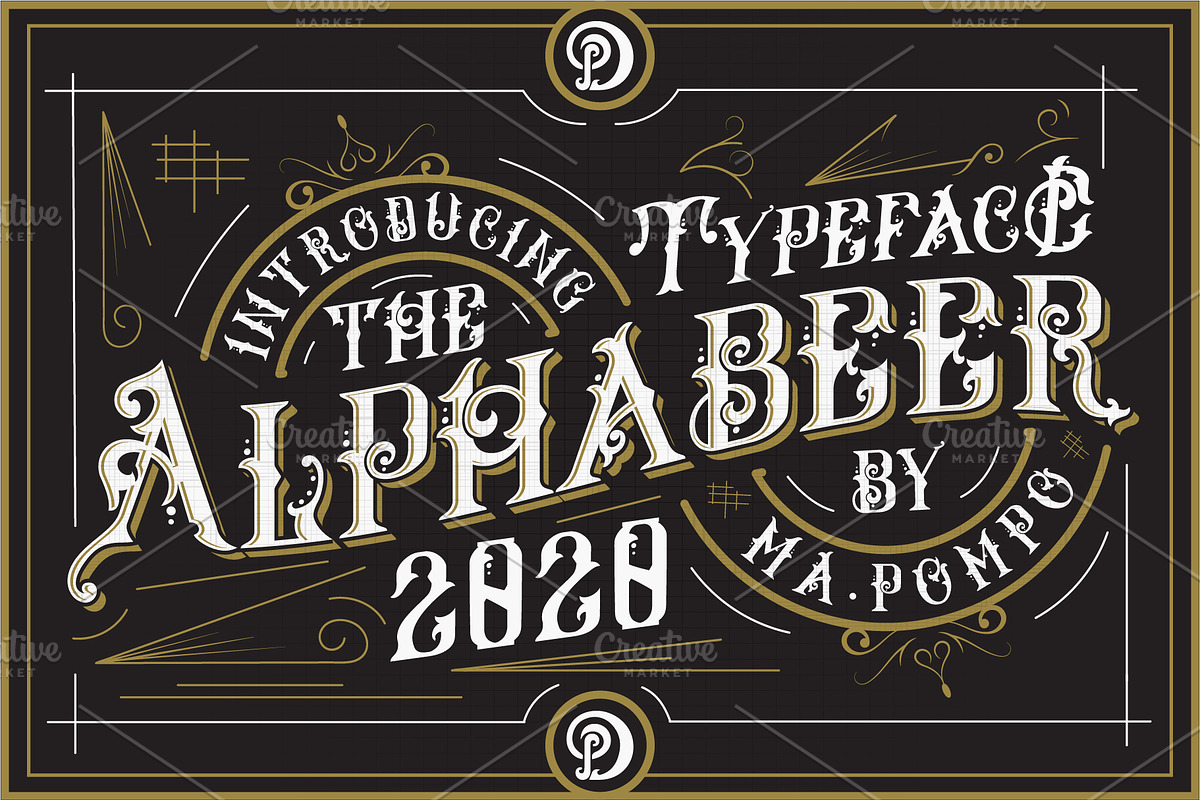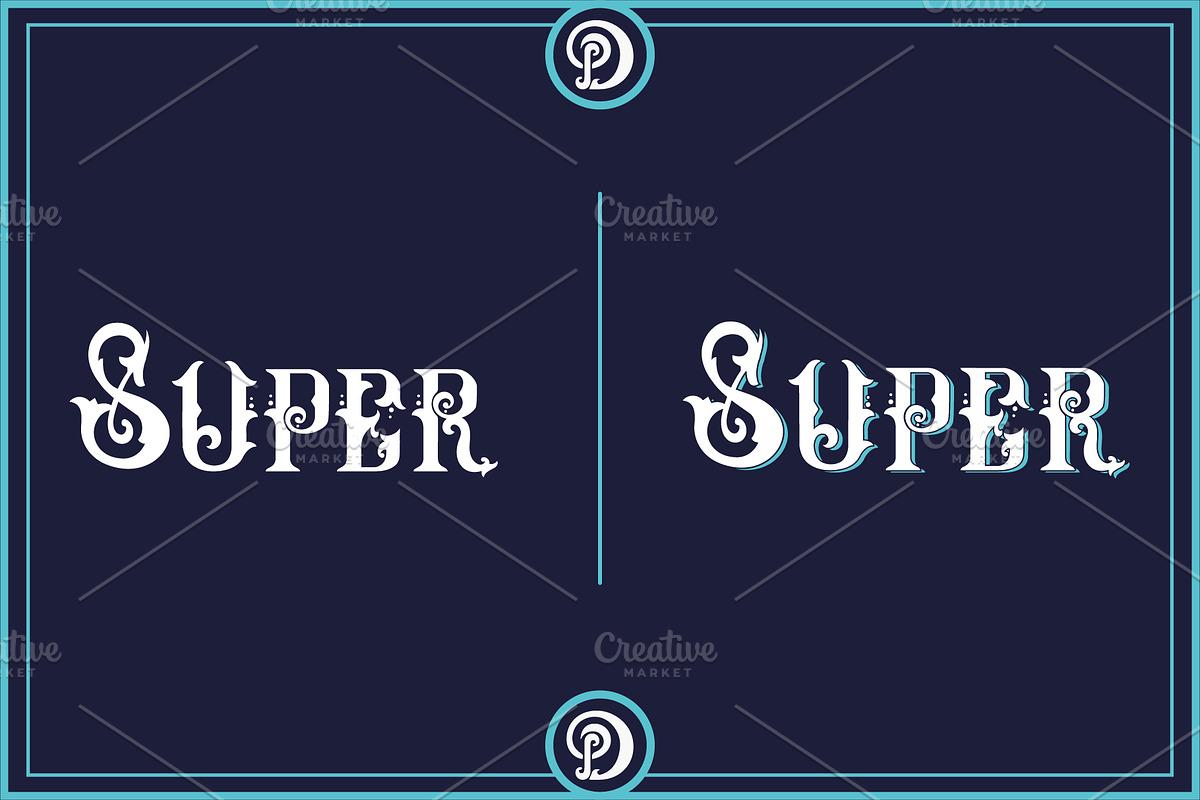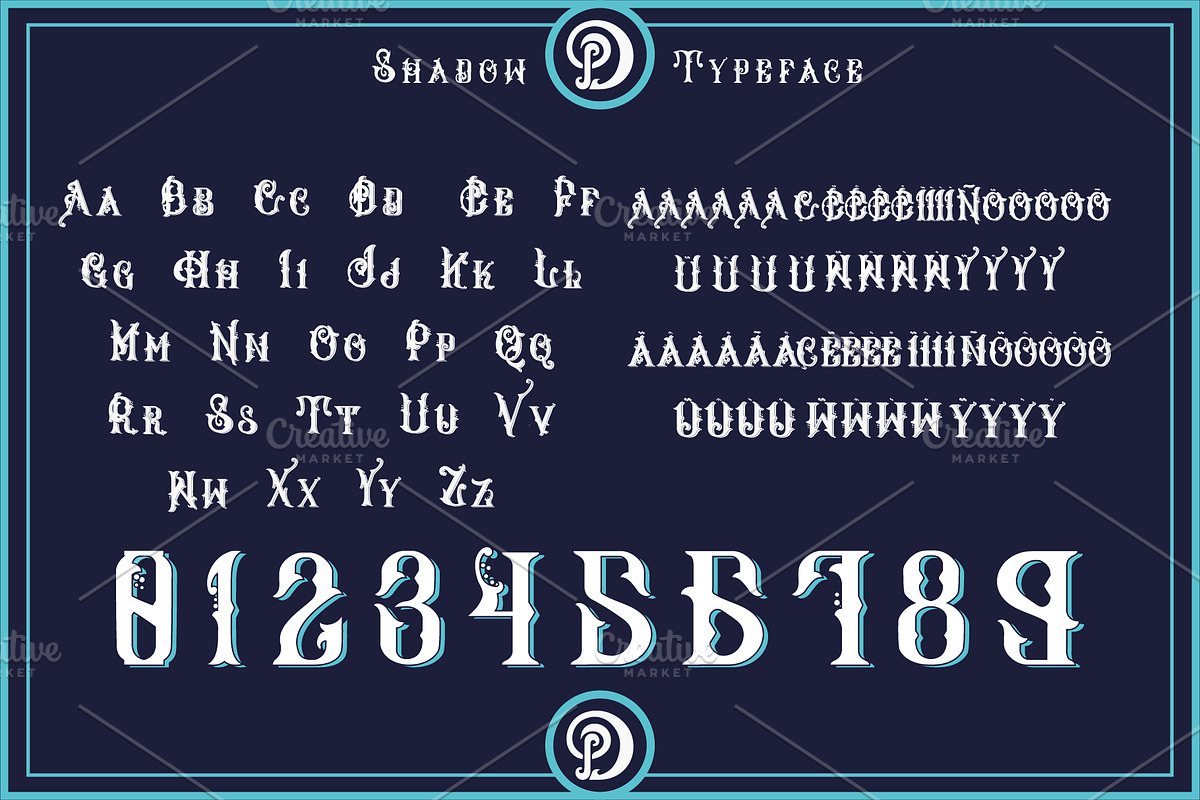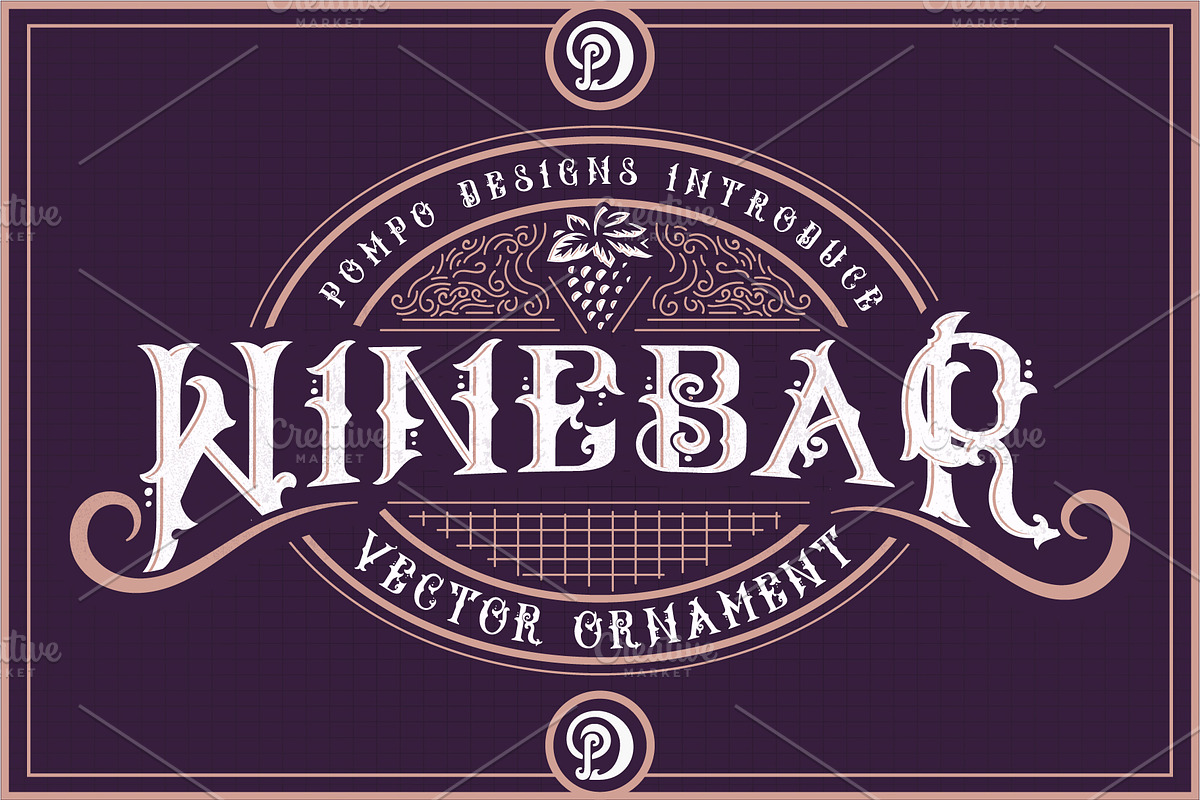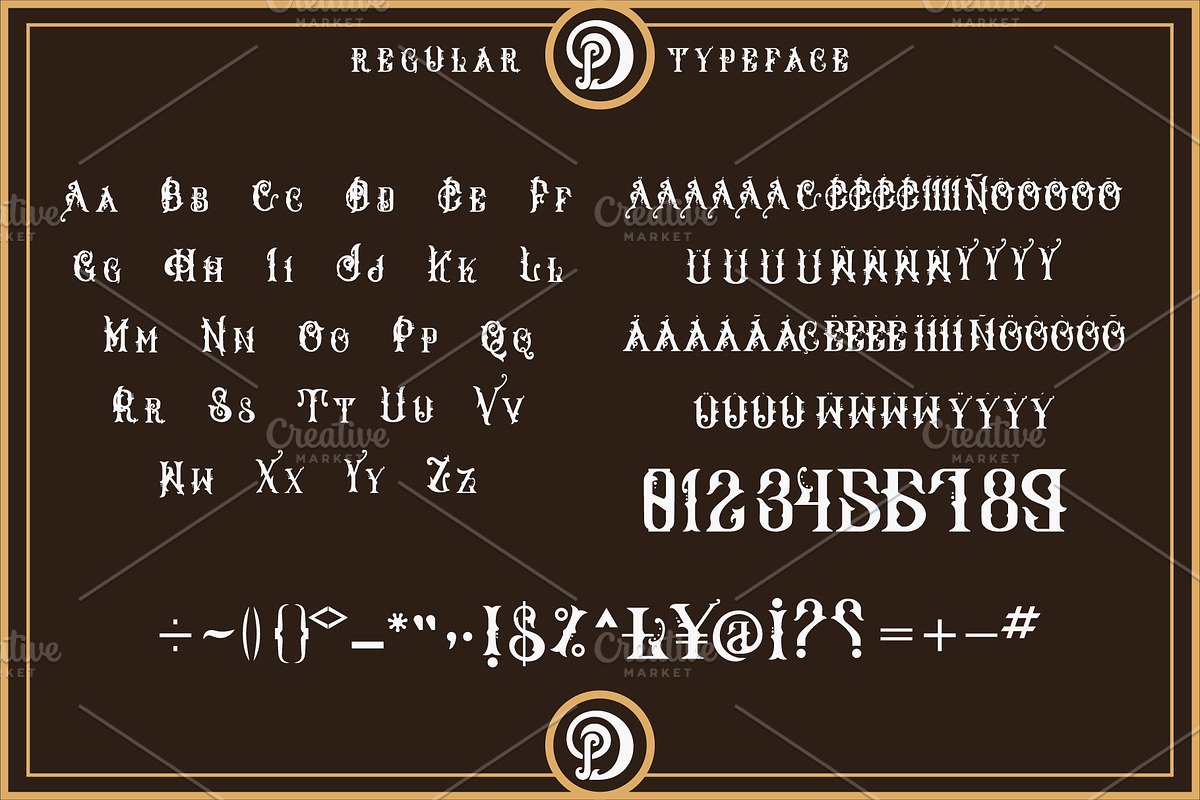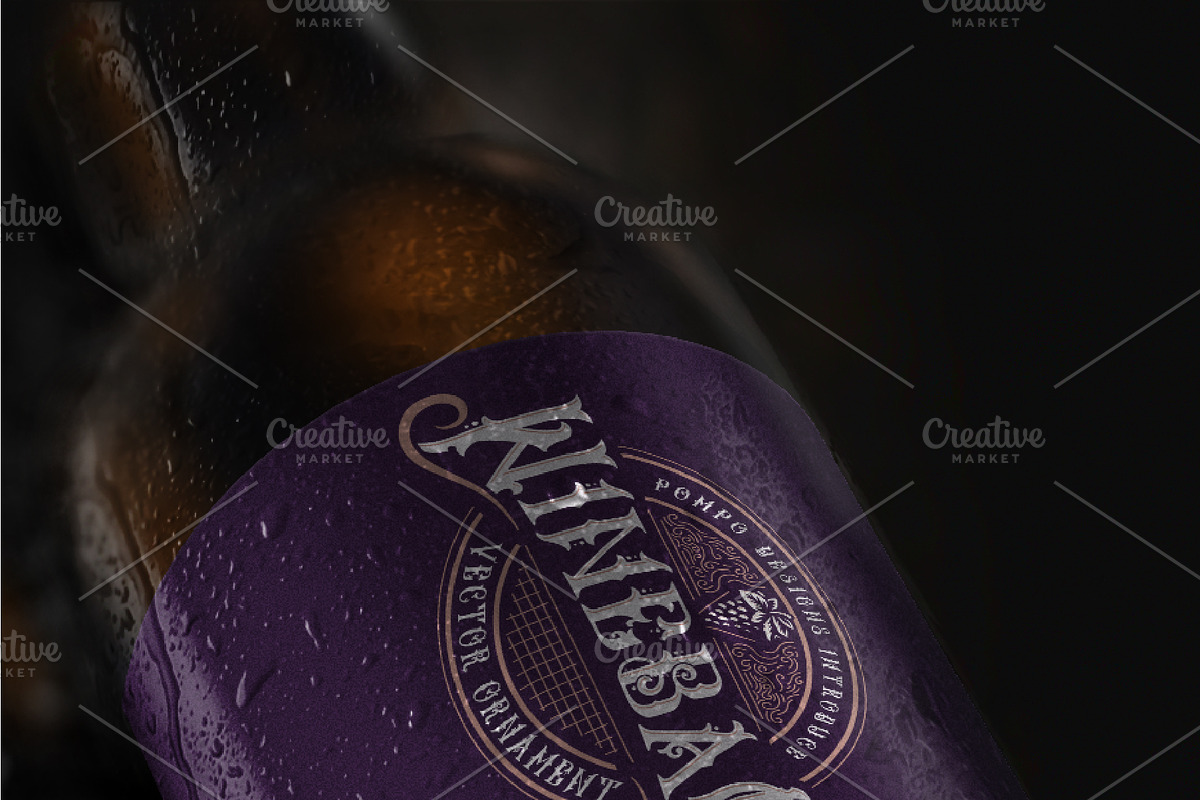
Alphabeer Typeface+Ornament
About Alphabeer Typeface
Alphabeer Typeface is a multi-layered type family with opentype features,Comes with 2 font system that can be layered to create different effect (Regular, Drop Shadow ).
Layered font system Character Set A-Z Numerals & Punctuations Accents (Multilingual characters) you can use Alphabeer Typeface in all type of (( logo, label, banners, posters, menus, etc )).